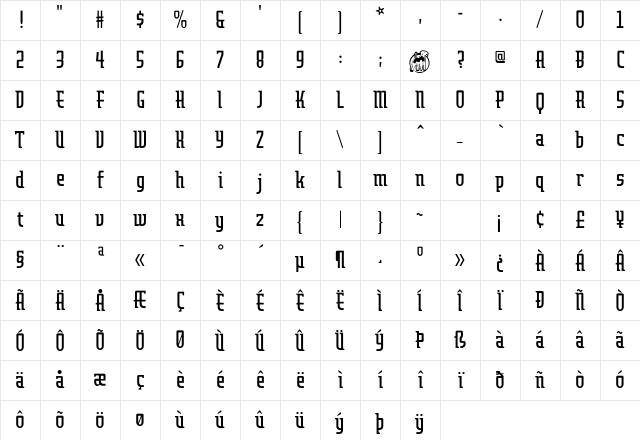
Airedale Bold
Design Context for Airedale
Airedale is a composed and adaptable typeface that performs quietly and consistently across a wide range of design contexts. Its bold stroke weight gives it real presence on the page.